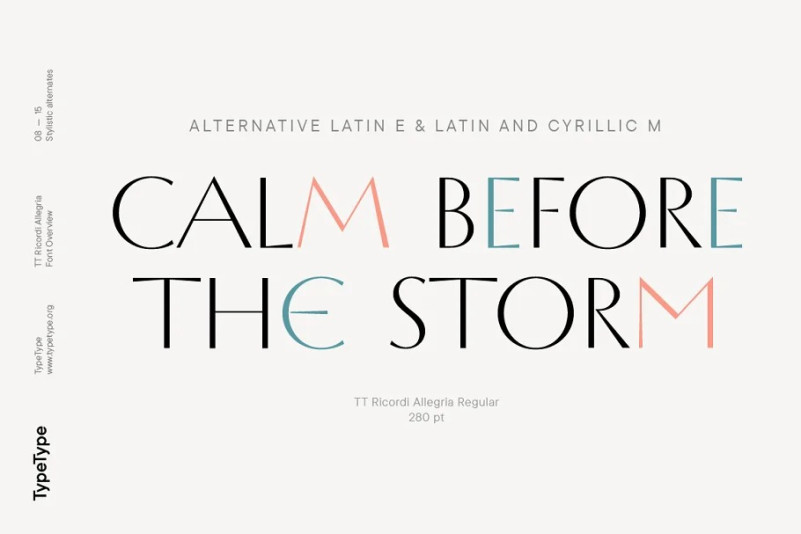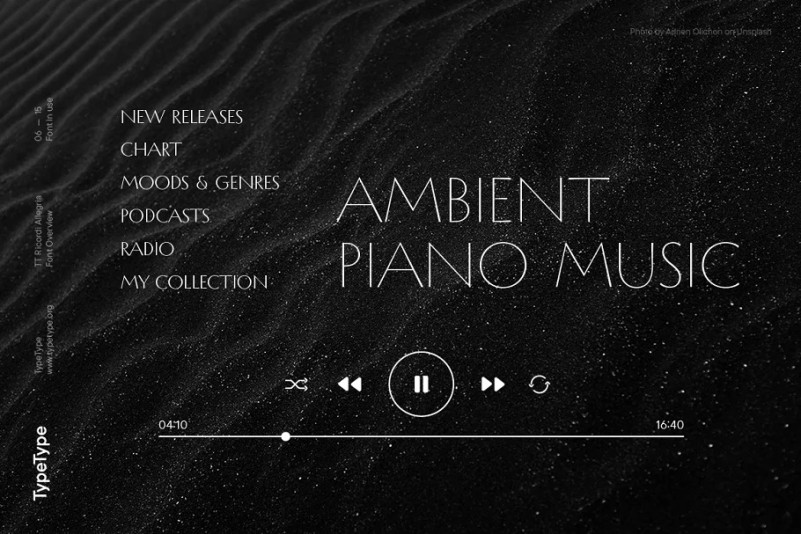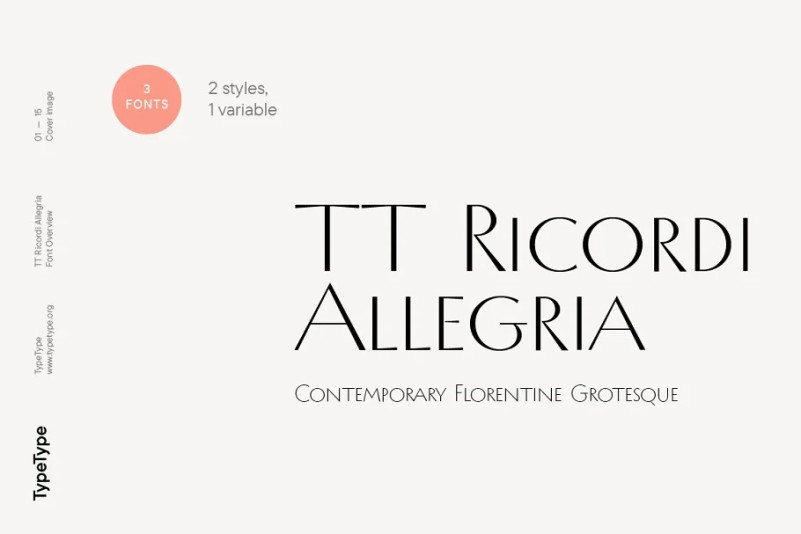
TT Ricordi Allegria Font
TT Ricordi Allegria Sans Serif Font continues developing the interesting and challenging task of finding visual gems of the past and rethinking them from the perspective of contemporary font requirements.
TT Ricordi Allegria is a sleek and intelligent contemporary Florentine grotesque inspired by the half-erased lettering in Basilica di Santa Croce, Florence. TT Ricordi Allegria was drawn by Antonina Zhulkova and reflects in its graphics the transitional stage between the classic serif with varying proportions, gravitating towards the Roman capital type, and the Florentine sans serif. The font is characterized by variability in the proportions of characters, contrast between strokes, wedge-shaped triangular characters, and the absence of traditional serifs.
The main visual feature of the typeface is its diversity and the ability, using different stylistic sets, to completely change the character and perception of the typeface. The drawing of the characters from the main set is strict, thanks to which the font looks stern, as if the inscription in the font was really carved out of stone. And with the help of another set, we can add roundness, or even smoothness, to the font. This is due to the fact that the letters (E R K Q J Y in Latin, and Л К Ж Э in Cyrillic) from the second set have either very noticeable “curls” or smooth, rounded “legs”. In addition, the typeface includes a set of beautiful ligatures for use in display inscriptions, such as large headlines.
An interesting moment when working on the typeface was the creation of the Cyrillic typeset, since the Cyrillic alphabet does not so easily fit into the concept of the Florentine grotesque and stressed semi-serif. The most difficult thing in working on the Cyrillic alphabet was to create a system of spacing for characters, as it was done in the Latin alphabet, and to make sure that when typing in Cyrillic, the drawing of the text remained beautiful. That is why the letters Д Л У Ы appearing in the font family are somewhat unusual to the eye, and the proportions of other characters in Cyrillic are not quite “classic” either. In general, the Cyrillic set looks more display than its Latin prototype, but at the same time it lacks the sense of historicity or legacy of the Soviet past, which often comes to the foreground when working on the design of the Cyrillic alphabet in this type of serifs.
TT Ricordi Allegria consists of two weights (Regular and Bold) and one variable font. Each style includes over 750 characters, as well as 19 OpenType features. Interesting features of the typeface include three stylistic sets that greatly change the perception of the font, a set of bright display ligatures, a few neat icons that are suitable for breaking text and will emphasize the visual language of the font.